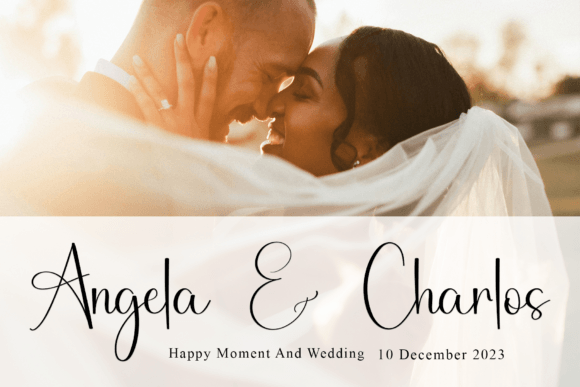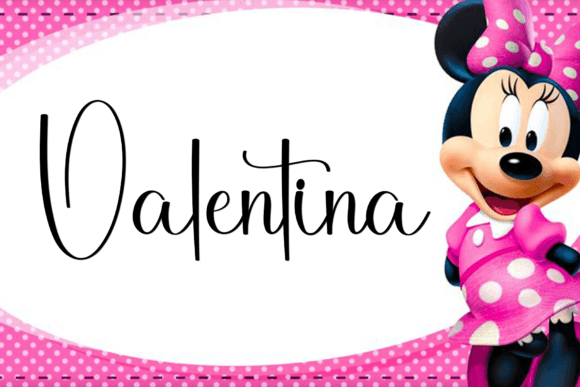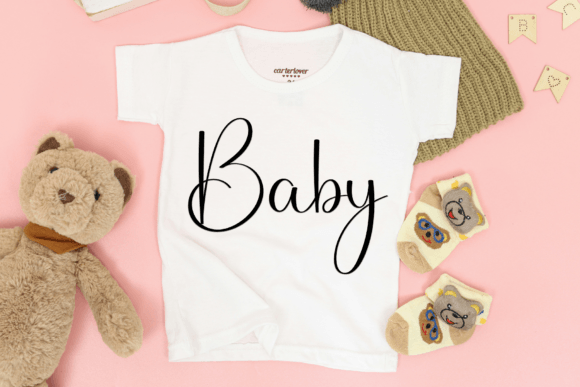
Introduction to Shophia Birthday Font
Do you remember that moment when you’re working on a creative project and you’re searching for the perfect font to give it that extra oomph? You scroll through countless options, and then, like a ray of sunshine, you stumble upon the perfect match. For designers, finding the right font can make all the difference in bringing a project to life.
Enter the stunning Shophia Birthday Font, a beautiful and elegant typeface that’s sure to elevate your designs to the next level. With its contemporary atmosphere and impeccable form, inspired by timeless classic calligraphy, this font is a design resource that’s hard to resist.
Key Features of Shophia Birthday Font
- High-quality design resource ideal for creative projects, especially birthday celebrations.
- Shophia Birthday Font features a transparent background, allowing for seamless integration with any design.
- Includes 1 font style, perfect for creating visually appealing birthday invitations, cards, and other party materials.
- Designed with a modern and playful touch, making it an excellent choice for any birthday-themed project.
Honest Review: Shophia Birthday Font
At first glance, I was impressed with the font’s aesthetic. The playful, cursive design is perfect for adding a touch of whimsy to any project. I particularly liked the transparent background, which makes it easy to customize and combine with other design elements.
- High-quality design with a unique aesthetic
- Transparent background allows for easy customization
- Perfect for creative projects that require a playful touch
- ⚠️ Limited character set, which may limit its use in longer text
- ⚠️ Not suitable for formal or professional projects
Overall, I’m impressed with the Shophia Birthday Font as a design resource. While it has some limitations, its unique design and high-quality aesthetic make it a great addition to any creative project.
Design Tips
To get the most out of the Shophia Birthday Font, use it in conjunction with other high-quality design resources, such as transparent backgrounds and bold graphics. Experiment with different font sizes, colors, and styles to create a unique and eye-catching design. You can also use the font in a variety of creative projects, such as invitations, posters, and social media graphics.
The Shophia Birthday Font is a versatile design resource that can be used in a variety of common use cases, including birthday invitations, party decorations, and social media graphics. It’s also a great resource for designers looking to add a touch of elegance and sophistication to their creative projects.